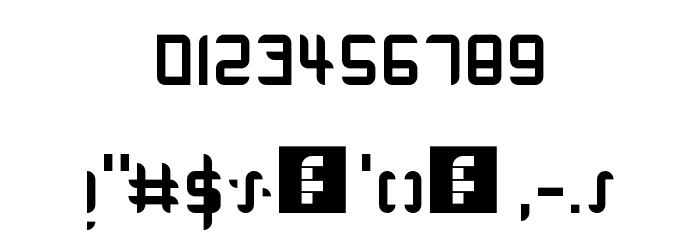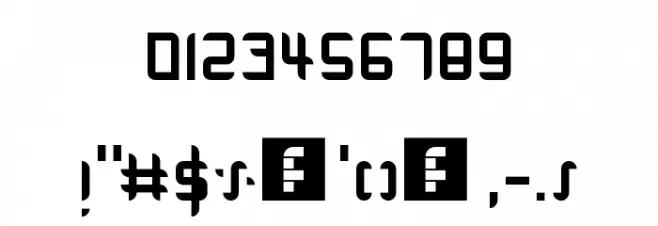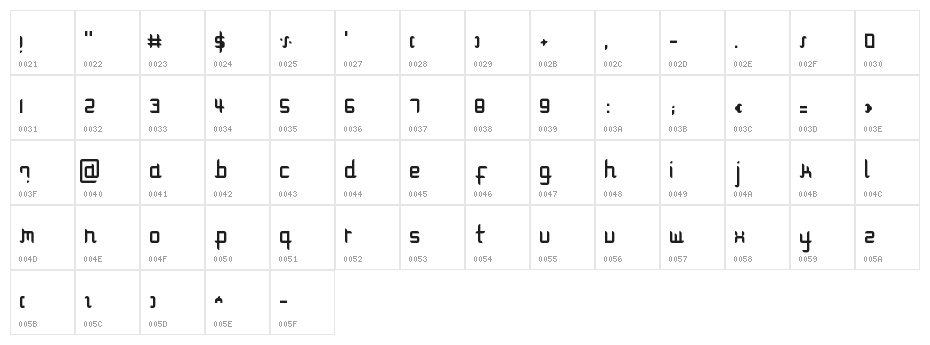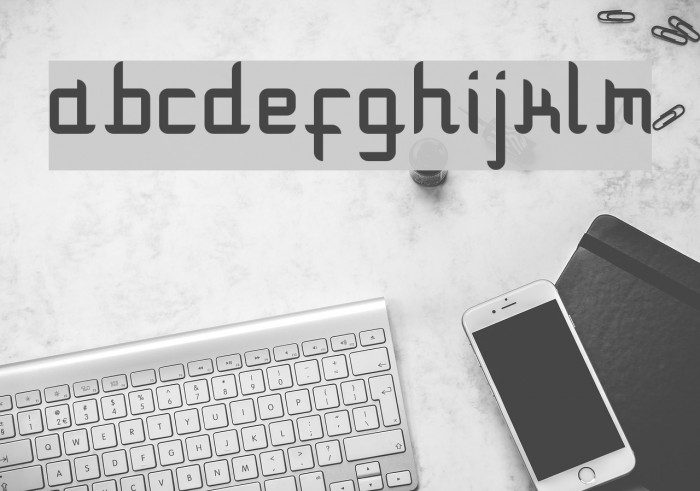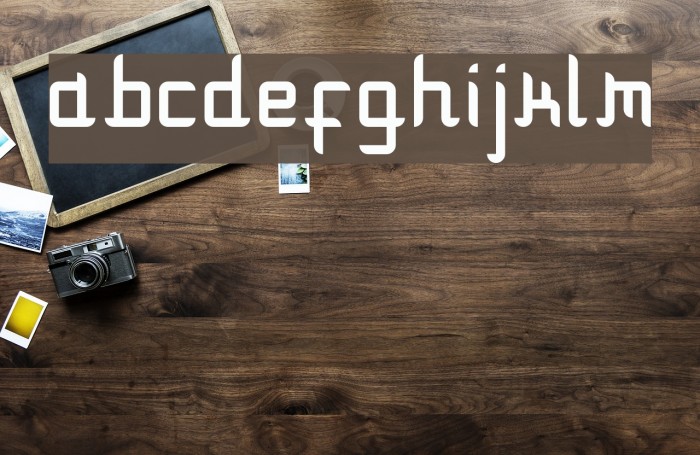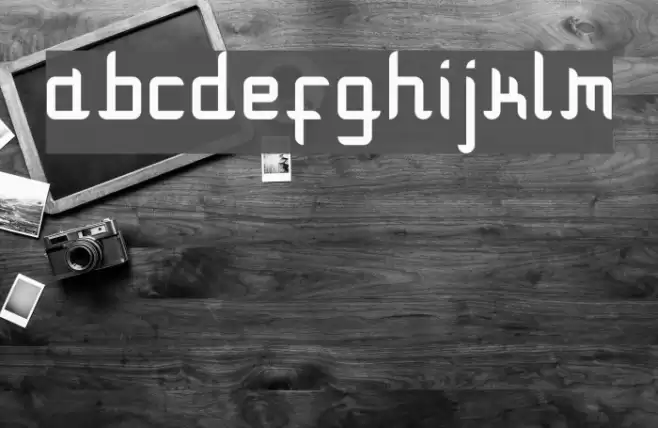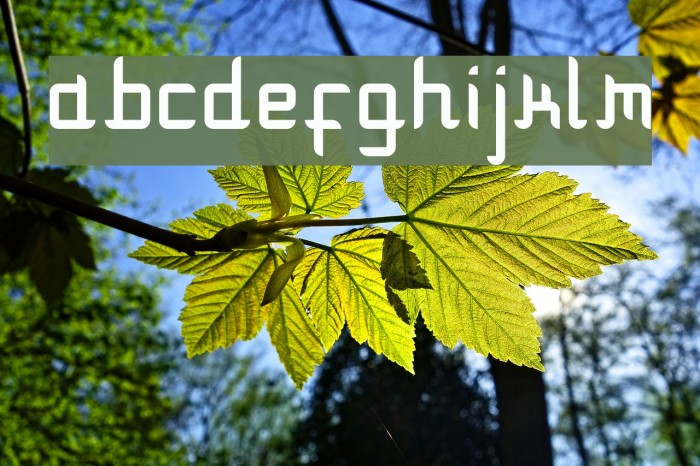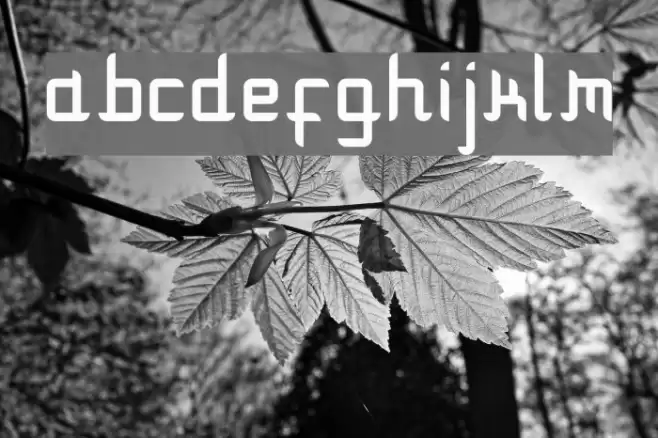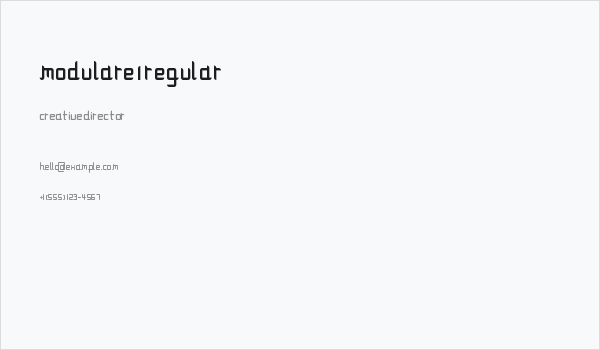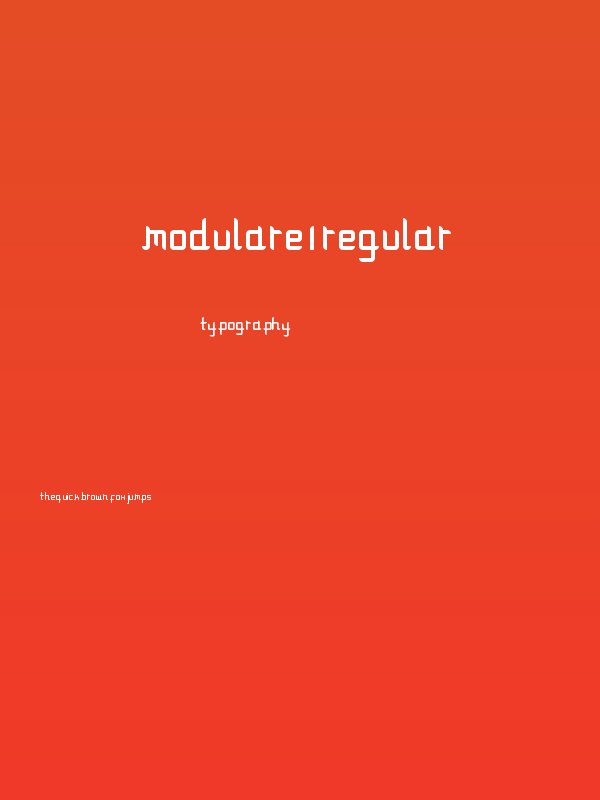
Modulare 1 Regular Font
Modulare 1 Regular Description
This font features a modern, geometric design with a modular structure. Each character is crafted with precision, showcasing a blend of straight lines and subtle curves. The uniformity in its design gives it a futuristic and digital feel, making it suitable for tech-related projects. The characters are evenly spaced, providing a clean and organized appearance. Its unique style is both eye-catching and functional, ideal for creating a strong visual impact.
| Proposed Projects | Ideal for tech branding, digital interfaces, futuristic posters, and modern web design. |